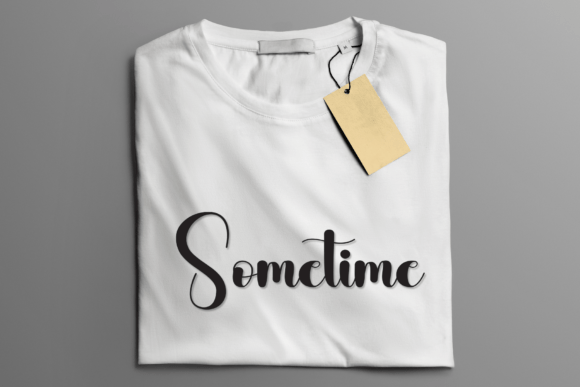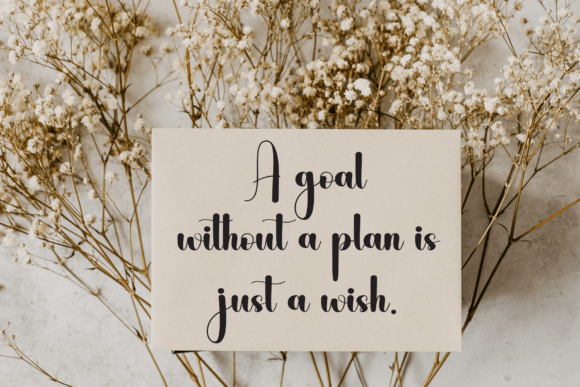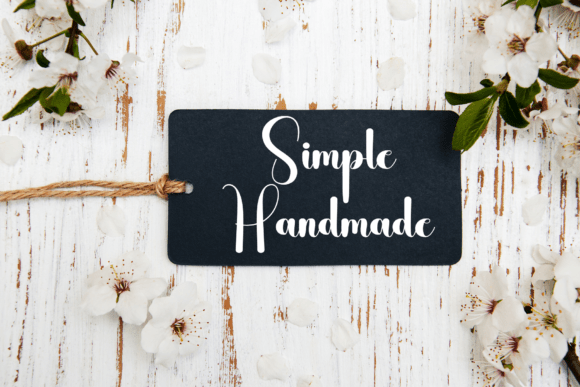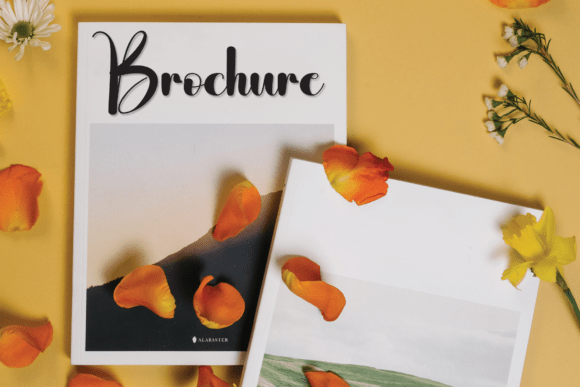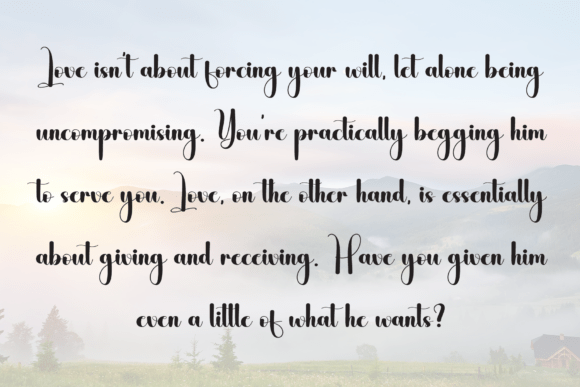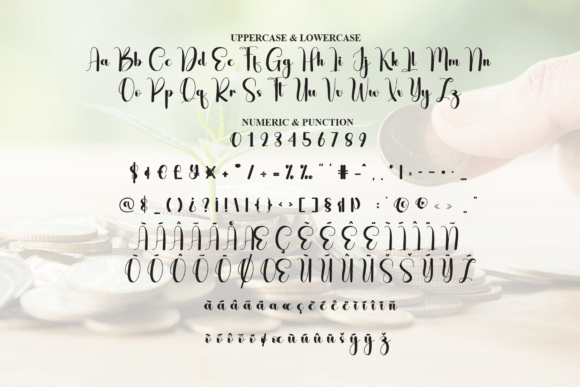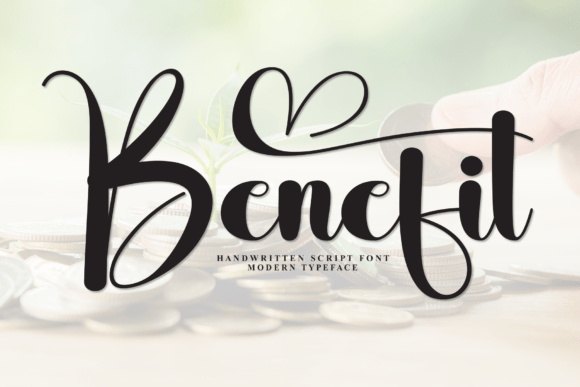
Introducing Benefit Font: The Charming Allure of Handwritten Script
In the world of typography, few fonts manage to capture the essence of warmth, amiability, and playfulness as effortlessly as the Benefit Font. This delightful handwritten script font is a treasure trove of creativity, designed to infuse your designs with a touch of enchantment and whimsy. Whether you’re crafting wedding invitations, greeting cards, or any project that yearns for a dash of fun and creativity, Benefit Font is the perfect companion to bring your vision to life.
The Secret Ingredient to Enchanted Designs
Benefit Font is more than just a typeface; it’s an experience. With its delectably cute and irresistibly playful demeanor, it has the power to transform your designs from ordinary to extraordinary. Each stroke of this beguiling font is carefully crafted to radiate warmth and amiability, making it an ideal choice for projects that require a personal touch. Imagine being able to convey your message with a font that not only speaks but also whispers sweet nothings to your audience’s hearts.
Elegance Meets Whimsy
What sets Benefit Font apart is its unique ability to blend whimsy and elegance seamlessly. This harmonious marriage of playfulness and sophistication allows designers to create striking impressions that touch hearts and captivate imaginations. Whether you’re aiming for a vintage charm or a modern twist, Benefit Font adapts effortlessly, ensuring your designs are always on point.
The versatility of Benefit Font is one of its most compelling features. It’s perfect for a wide range of projects, including:
• Wedding Invitations: Add a romantic and whimsical touch to your wedding invites, setting the tone for a memorable day.
• Greeting Cards: Whether it’s a birthday, anniversary, or just because, Benefit Font brings a personal and heartfelt touch to your cards.
• Branding and Packaging: Stand out in the market with a font that exudes friendliness and approachability, perfect for brands looking to connect with their audience on a personal level.
• Social Media Graphics: Elevate your social media presence with eye-catching graphics that speak to your audience’s emotions.
Why Choose Benefit Font?
Choosing Benefit Font for your design projects comes with numerous benefits:
• Unique Appeal: Stand out from the crowd with a font that is both unique and memorable.
• Emotional Connection: Create designs that resonate with your audience on an emotional level, fostering a deeper connection.
• Versatility: Use it across various projects and platforms, from digital media to print.
• Easy to Read: Despite its playful nature, Benefit Font remains clear and readable, making it perfect for both headings and body text.
Benefit Font is more than just a typeface; it’s a tool for designers and crafters to create magic. Its unique blend of whimsy and elegance, coupled with its versatility and readability, makes it an indispensable asset in your design arsenal. Whether you’re a professional designer or a DIY enthusiast, Benefit Font invites you to explore new dimensions of creativity, making your designs not just visually stunning but also emotionally resonant. So, why settle for ordinary when you can enchant your audience with the extraordinary allure of Benefit Font?